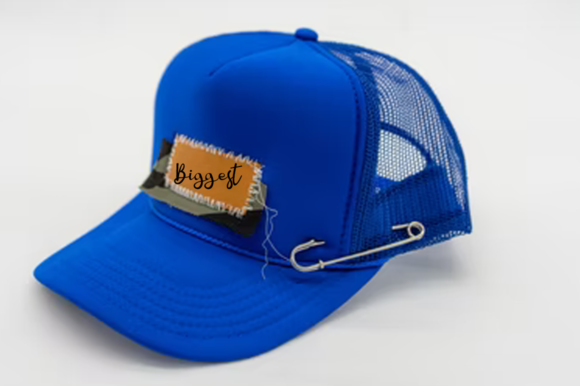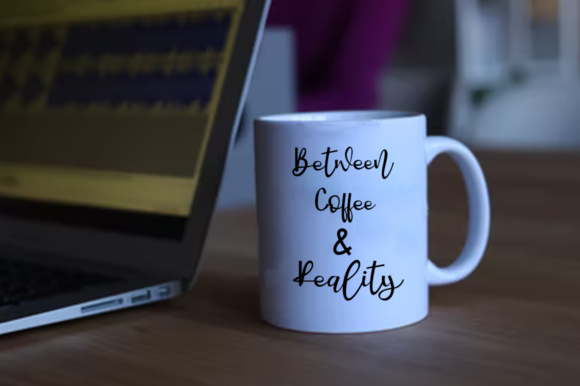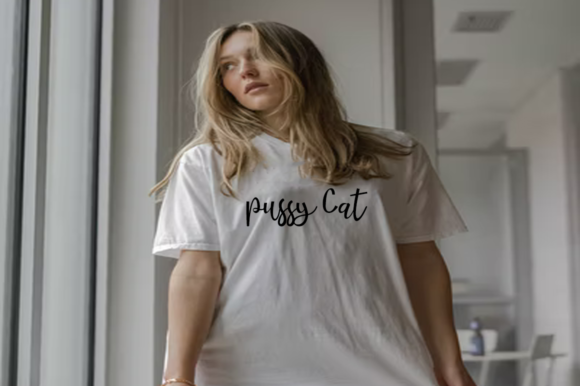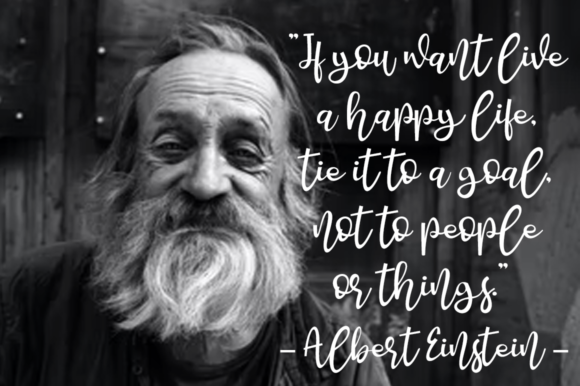
The Perfect Match for Your Next Design Project
Have you ever been stuck on a design project, scrolling through font options, and just can’t seem to find the right fit? You know, that feeling when you finally stumble upon a font that speaks to you, and suddenly your entire design vision comes together? That’s exactly what happened when I discovered the Gober Font.
Gober Font is a stylish and relaxed script font that exudes confidence and versatility. With its stylish alternates and ligatures, this font is the perfect match for any project, whether it’s a logo, business card, or social media graphics. As a designer, you’ll appreciate the value that Gober Font brings to your work, allowing you to create professional and eye-catching designs with ease.
With Gober Font, you can elevate your designs and take them to the next level. Its unique characteristics and endless possibilities make it a valuable asset for any designer looking to add a touch of sophistication and personality to their work.
Gober Font Key Features
• Unique Characteristics: Gober Font features a unique blend of geometric and organic elements, resulting in a distinctive and eye-catching appearance.
• Kerning and Ligatures: Gober Font includes advanced kerning and ligature features, ensuring seamless text rendering and professional-looking typography.
Gober Font Review
Overall, I was impressed with the unique aesthetic of the Gober font. ✨ Its quirky, hand-drawn style adds a touch of personality to any design. The font’s irregularities give it a human feel, making it perfect for creative projects that need a bit of edge.
One of the standout features of Gober is its versatility. ✨ It can be used for both headings and body text, and its bold weight makes it ideal for titles and headings. The font also comes in a range of weights and styles, allowing designers to mix and match to create a unique visual identity.
• ⚠️ Readability can be an issue in certain contexts, particularly at smaller font sizes. The font’s irregularities can make it difficult to read in certain situations.
• ⚠️ Limited language support may be a concern for designers working on multilingual projects.
• ⚠️ The font’s quirky style may not be suitable for all types of projects, particularly those that require a more professional or formal tone.
While the Gober font has its limitations, its unique aesthetic and versatility make it a great choice for designers looking to add some personality to their projects. With a bit of careful consideration and planning, the Gober font can be a valuable addition to any design toolkit.
Tips for Getting the Most Out of Gober Font
To get the most out of Gober Font, use it for:
• Casual, creative projects.
• Designing for younger audiences.
• Creating a playful, energetic vibe.
Experiment with different font sizes and styles to achieve the desired effect.
Gober Font is commonly used for:
• Social media graphics.
• Marketing materials.
• Children’s products and packaging.